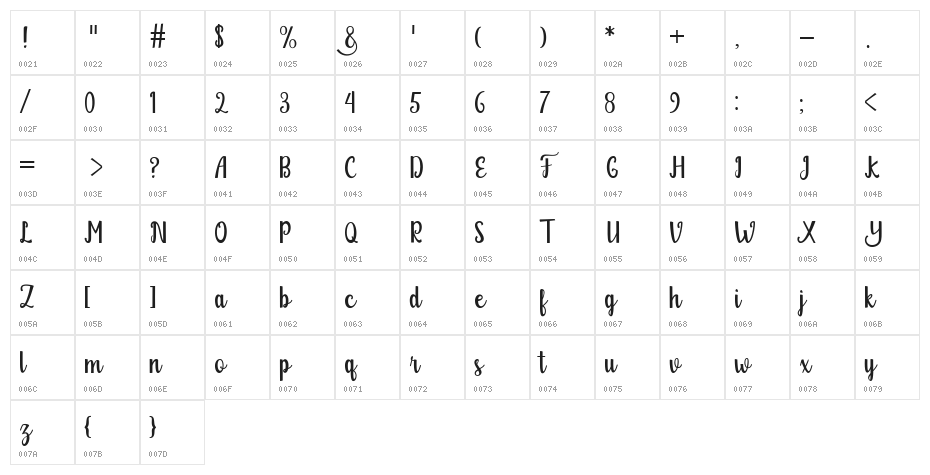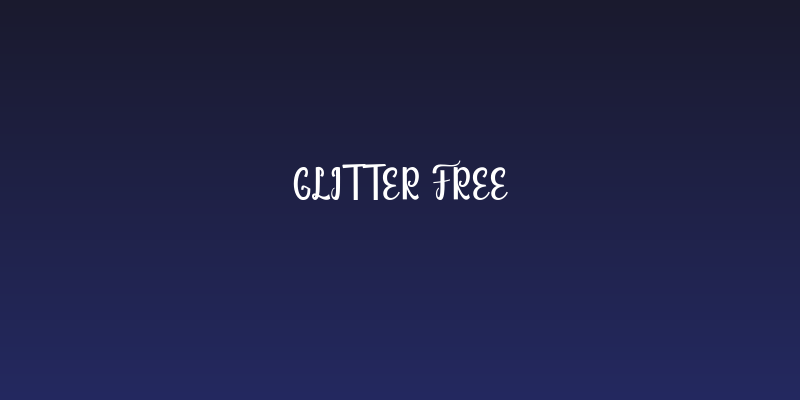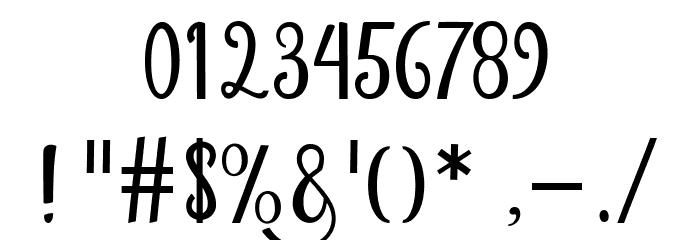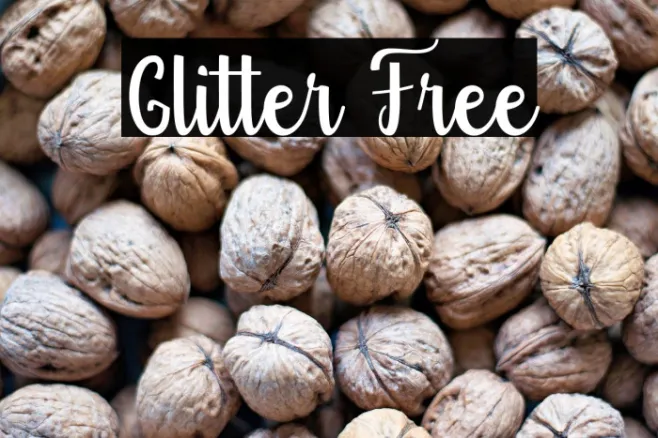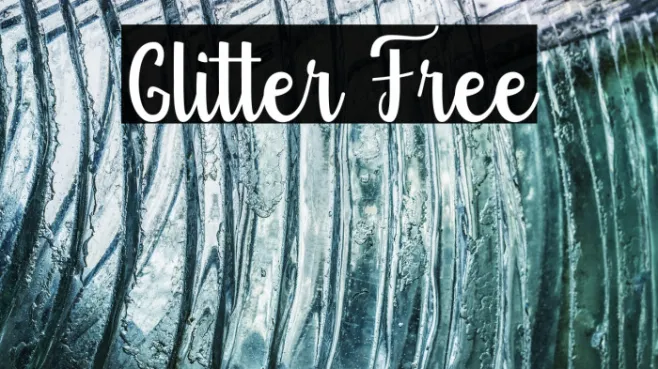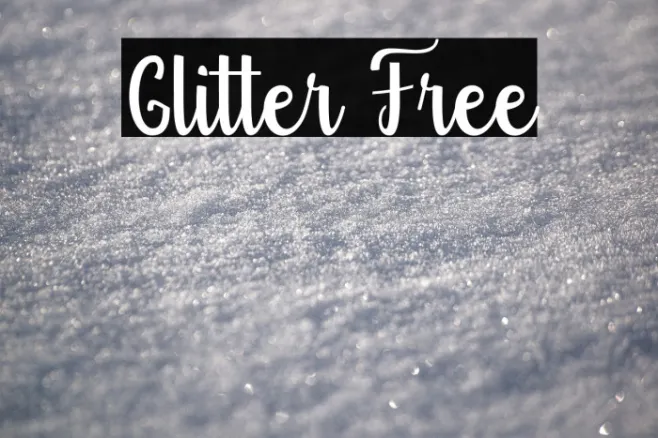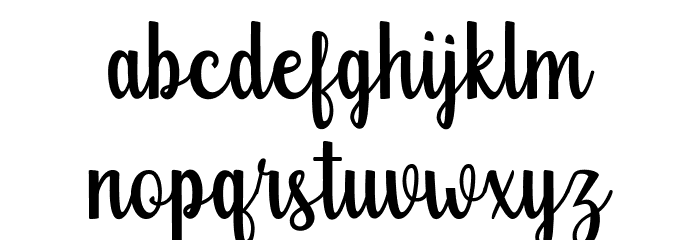
Glitter Free Font
Glitter Free Description
This font features a playful and decorative style with a handwritten feel. The uppercase letters are bold and slightly condensed, with unique flourishes that add a whimsical touch. The lowercase letters maintain a consistent flow, enhancing the handwritten aesthetic. Numbers are clear and legible, while special characters are creatively styled to match the overall theme. The font's strokes are moderately thick, providing a medium contrast that ensures readability while maintaining its artistic flair.
| Proposed Projects | Ideal for greeting cards, invitations, playful branding, and creative posters. |